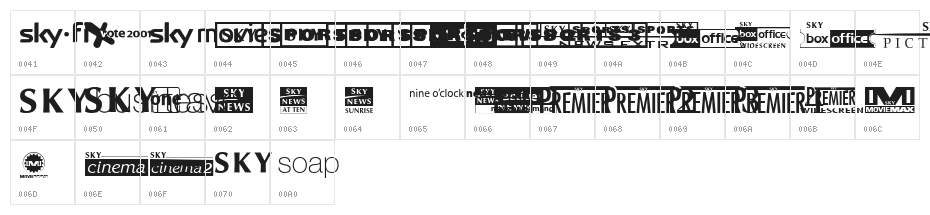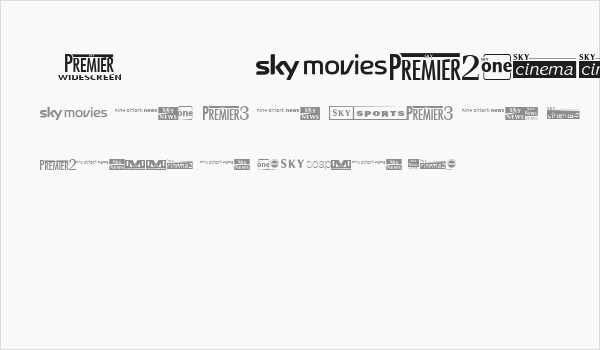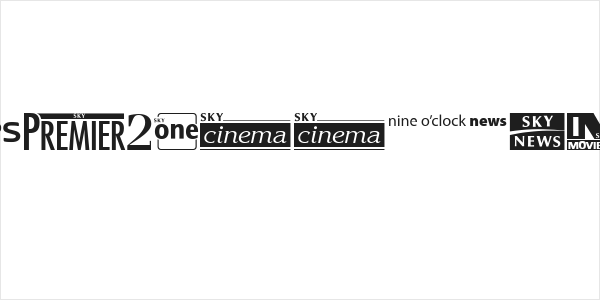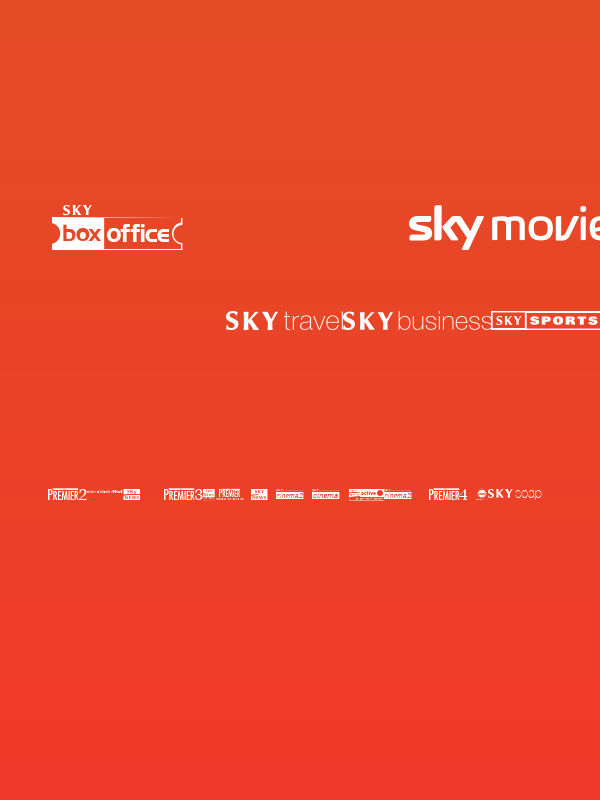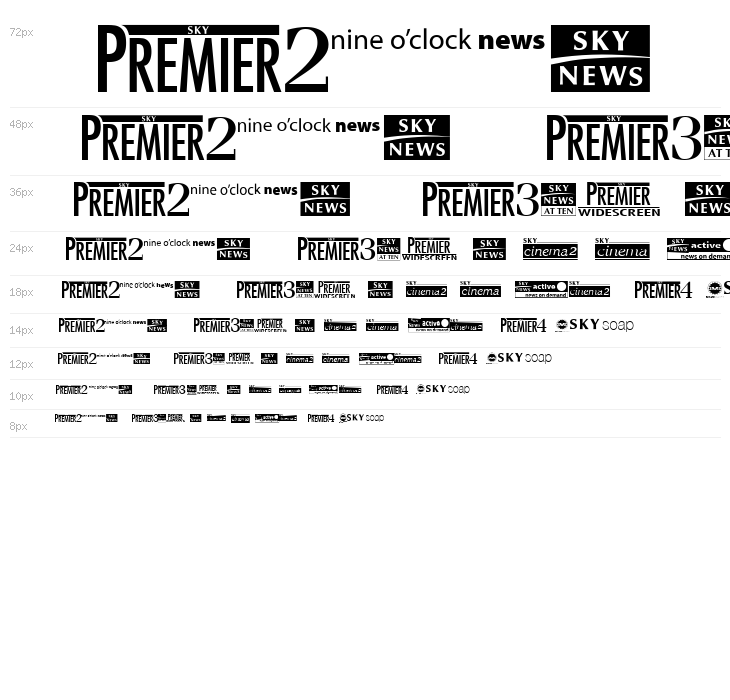
Sky 1998 Channel Logos Font
Sky 1998 Channel Logos Description
This collection of logos features a variety of fonts used for different Sky channels and services from 1998. The fonts range from bold and modern sans-serif styles to more classic serif designs. The use of uppercase letters is prominent, conveying a sense of authority and professionalism. The spacing between characters varies, with some logos having tightly packed letters while others are more spaced out. The contrast in stroke thickness is generally medium, providing a balanced and readable appearance. Overall, the styles are diverse, reflecting the different themes and audiences of each channel.
| Overall Style | Modern, Classic, Decorative |
| Use Case | Logos, Branding, Headlines |
| Proposed Projects | These fonts are ideal for retro-themed media projects, branding for television or streaming services, and any design work that aims to capture the late 1990s aesthetic. |